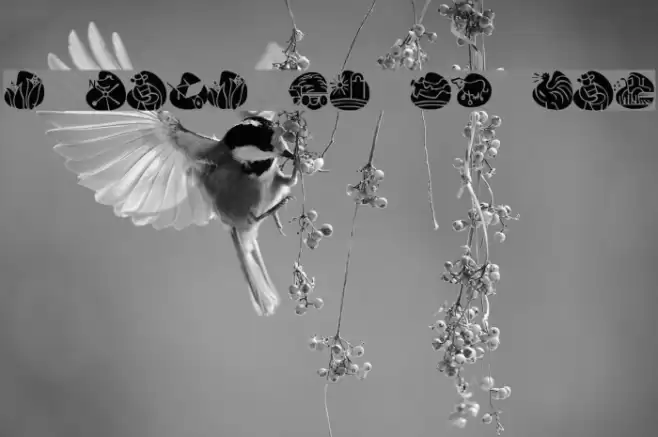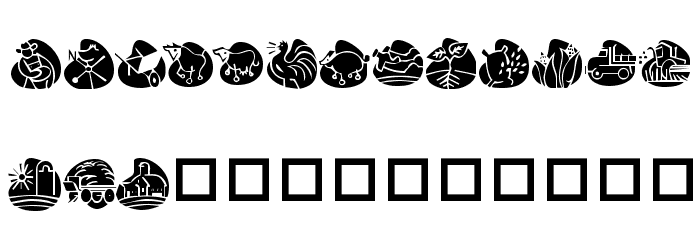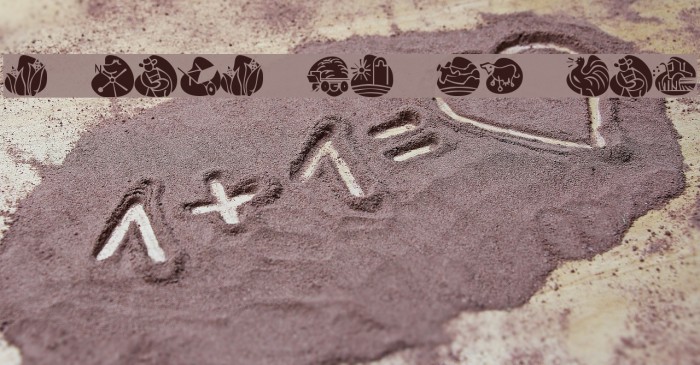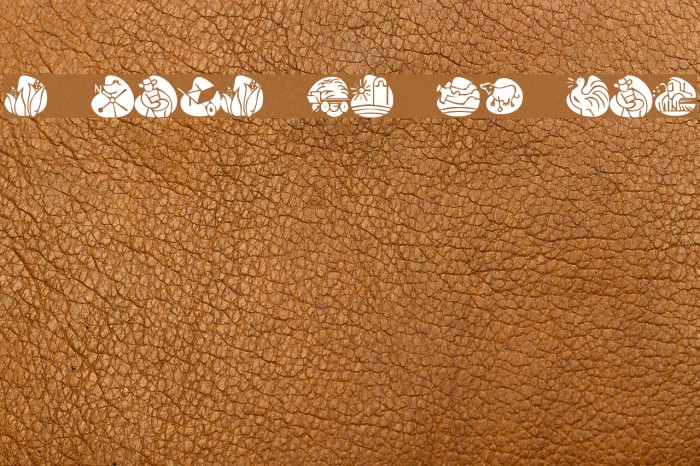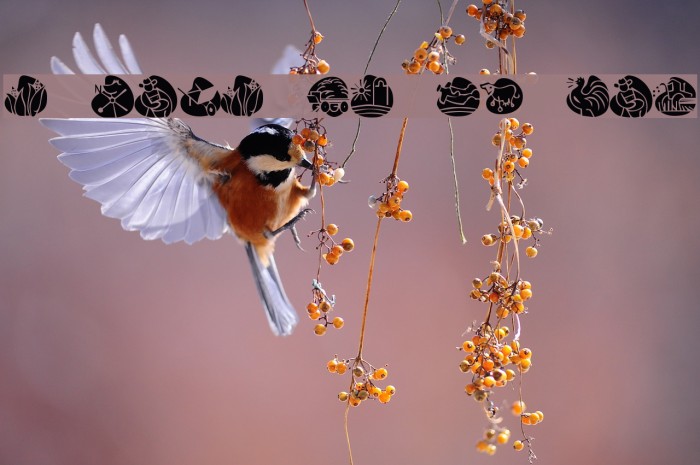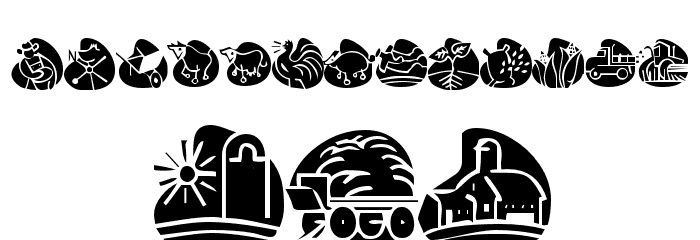
KR Back On The Farm Font
KR Back On The Farm Description
This is a decorative font featuring charming farm-themed illustrations. Each character is represented by a unique farm-related icon, such as barns, tractors, animals, and crops. The icons are bold and filled with solid black, creating a strong visual impact. The style is playful and whimsical, capturing the essence of rural life with a modern twist. The icons are enclosed in circular shapes, providing a cohesive and uniform appearance across the set. This font is perfect for projects that require a touch of countryside charm and creativity.
A decorative font with farm-themed icons in bold, circular designs from Uncategorized fonts.
- Proposed Projects: Ideal for children's books, farm-themed event invitations, educational materials, and rustic branding.
- Use Case: Logos, Headlines, Themed Invitations